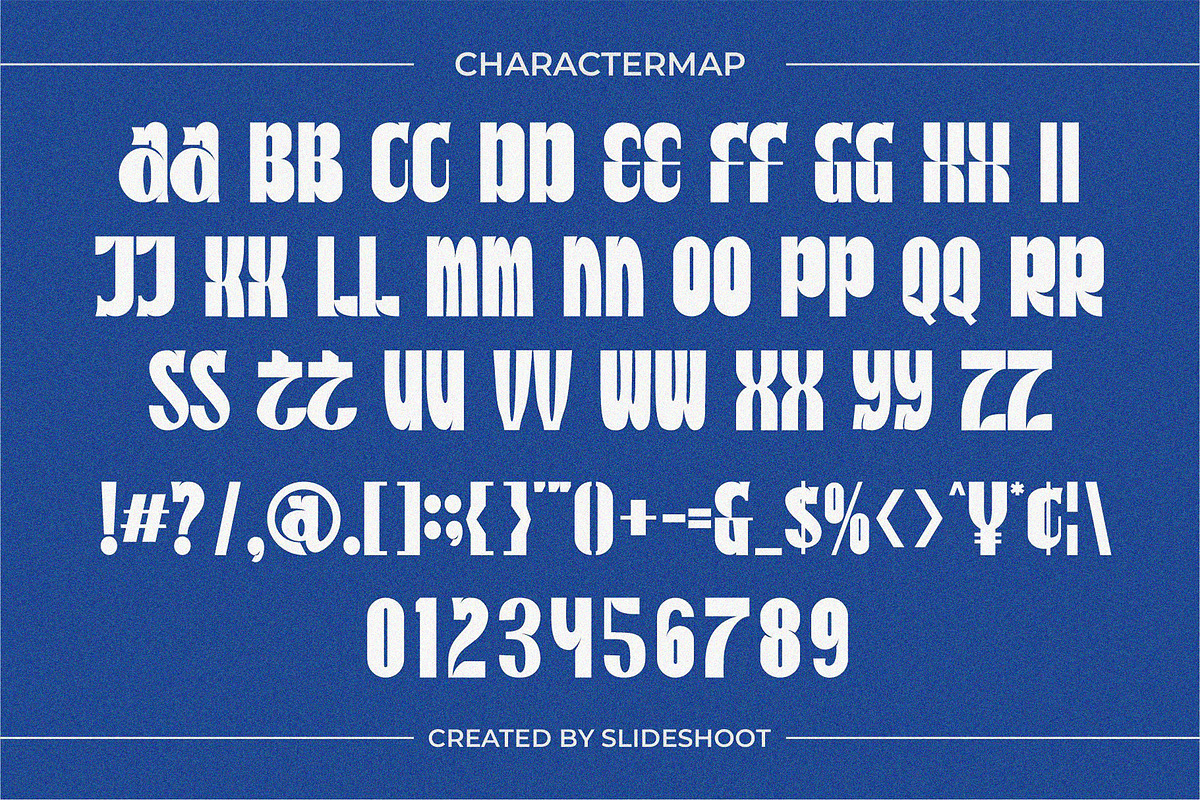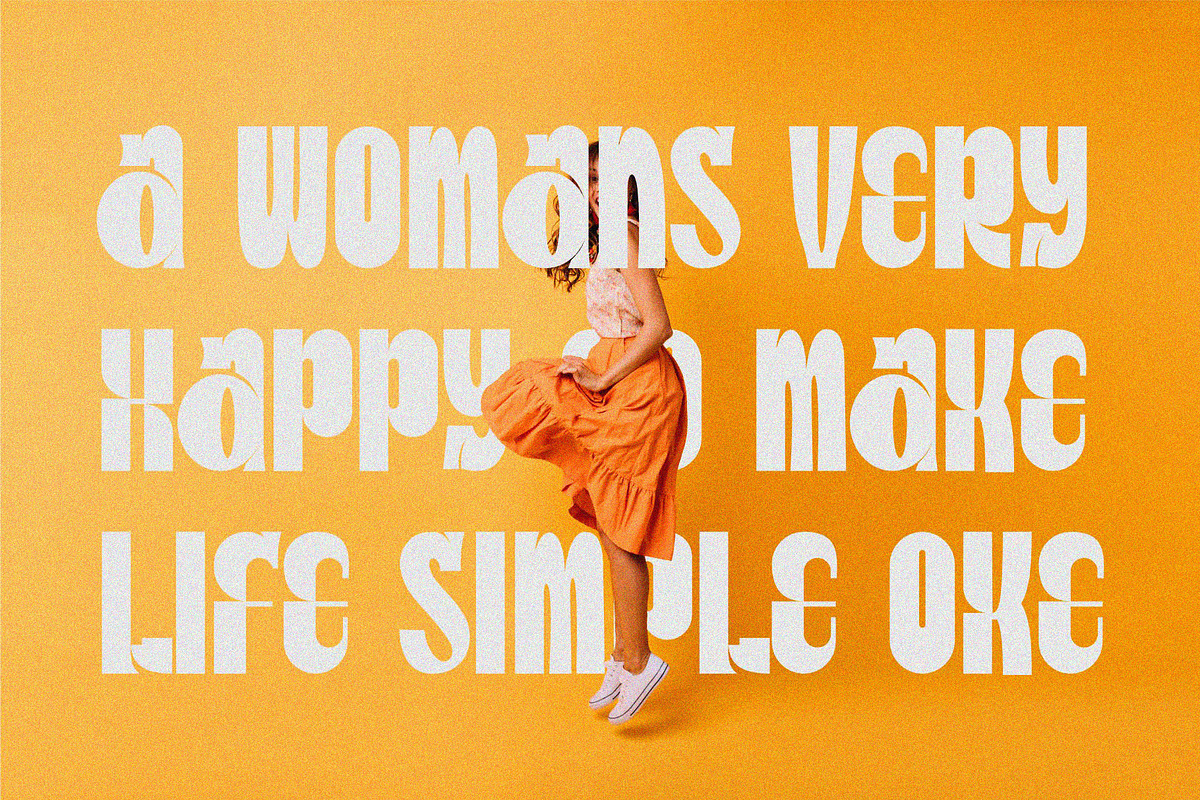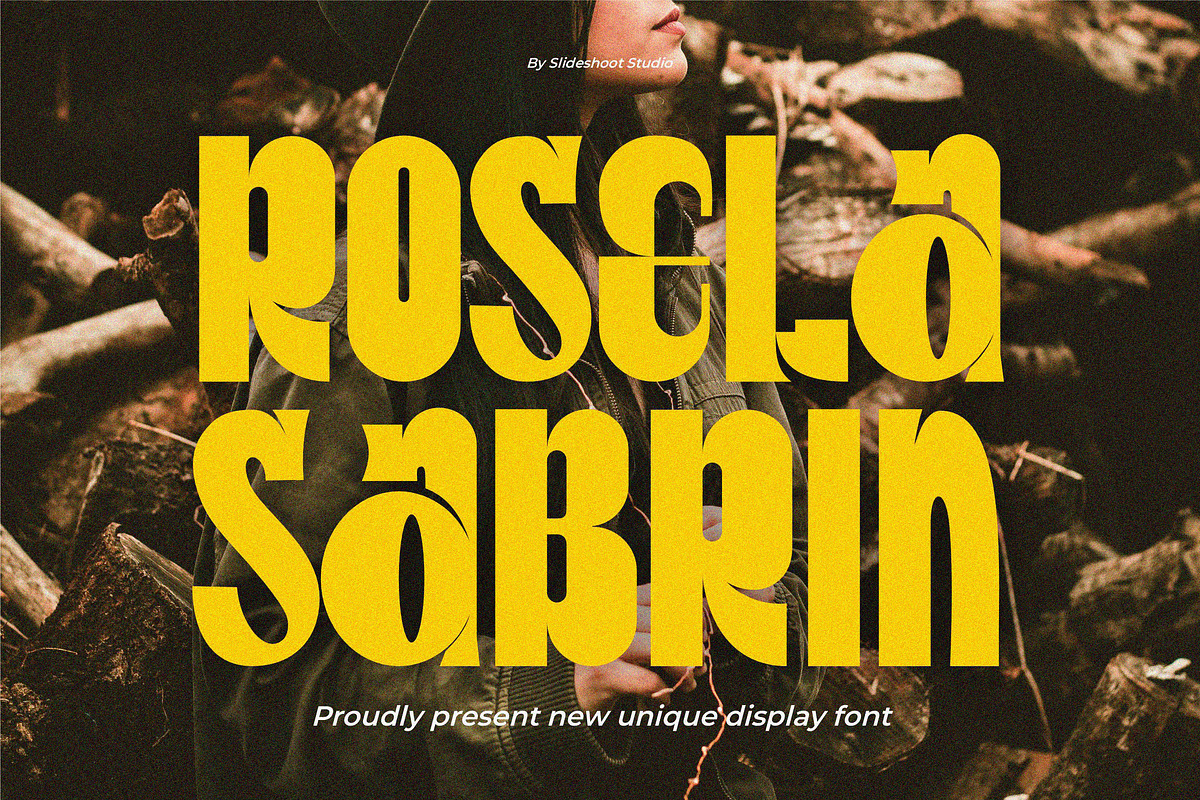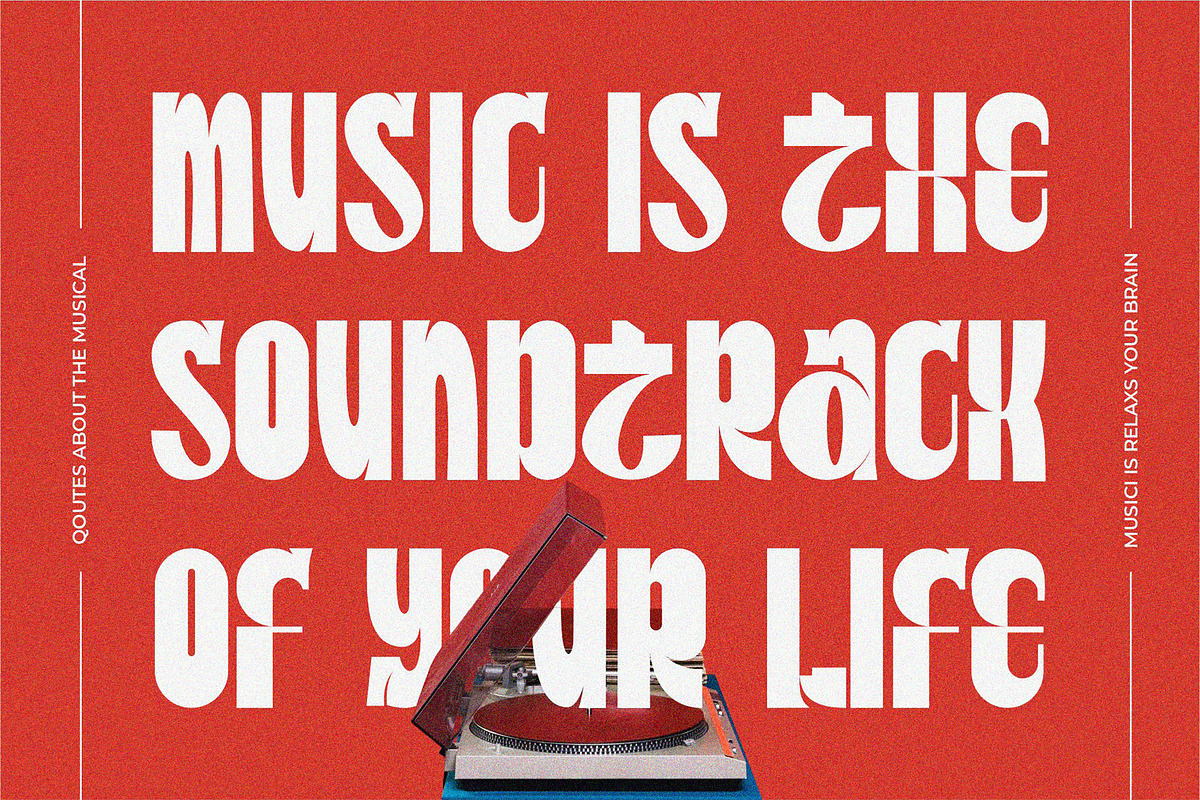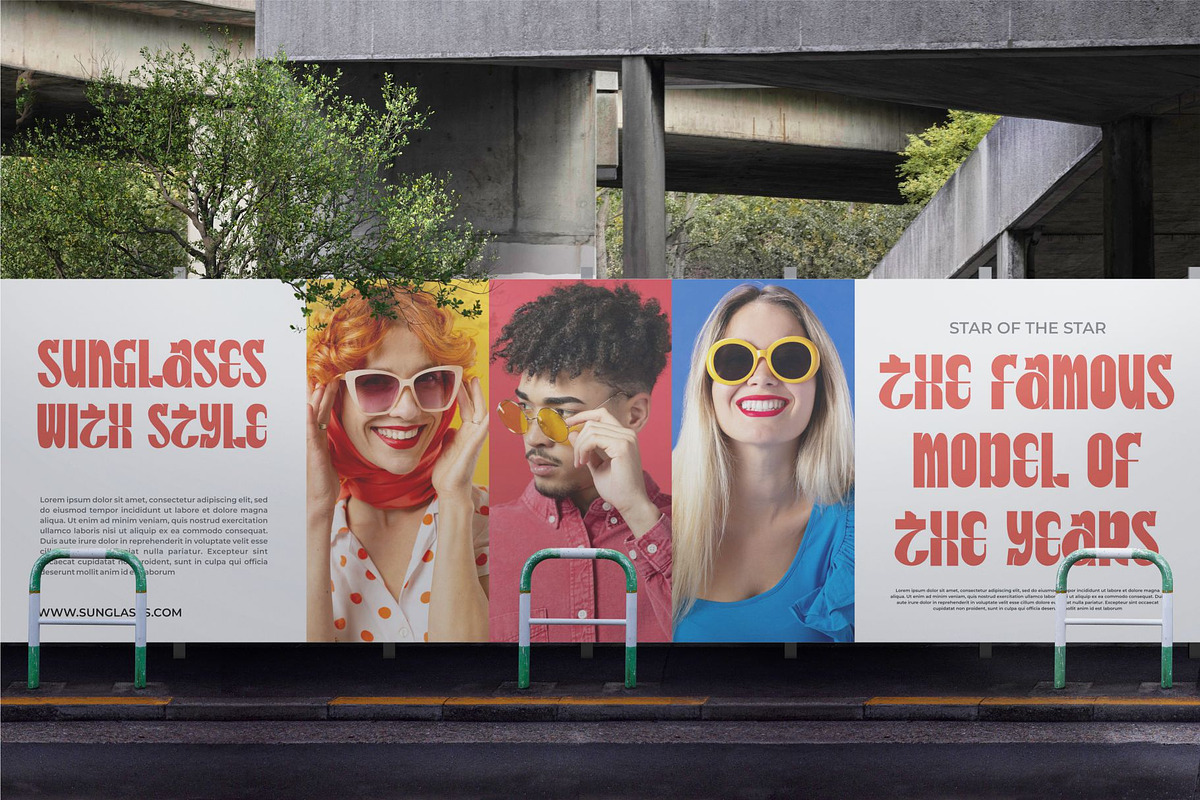
Rosela Sabrin || Unique Display Font
Introducing Rosela Sabrin - An elegant modern display font. Its clean and minimalistic works wonderfully on its own for logos, headlines, posters, packaging and many more! And with Three different weights to choose, your option to create more unique and versatile design is a lot wider. Have fun and create more.. Your Imagination only your limit!!